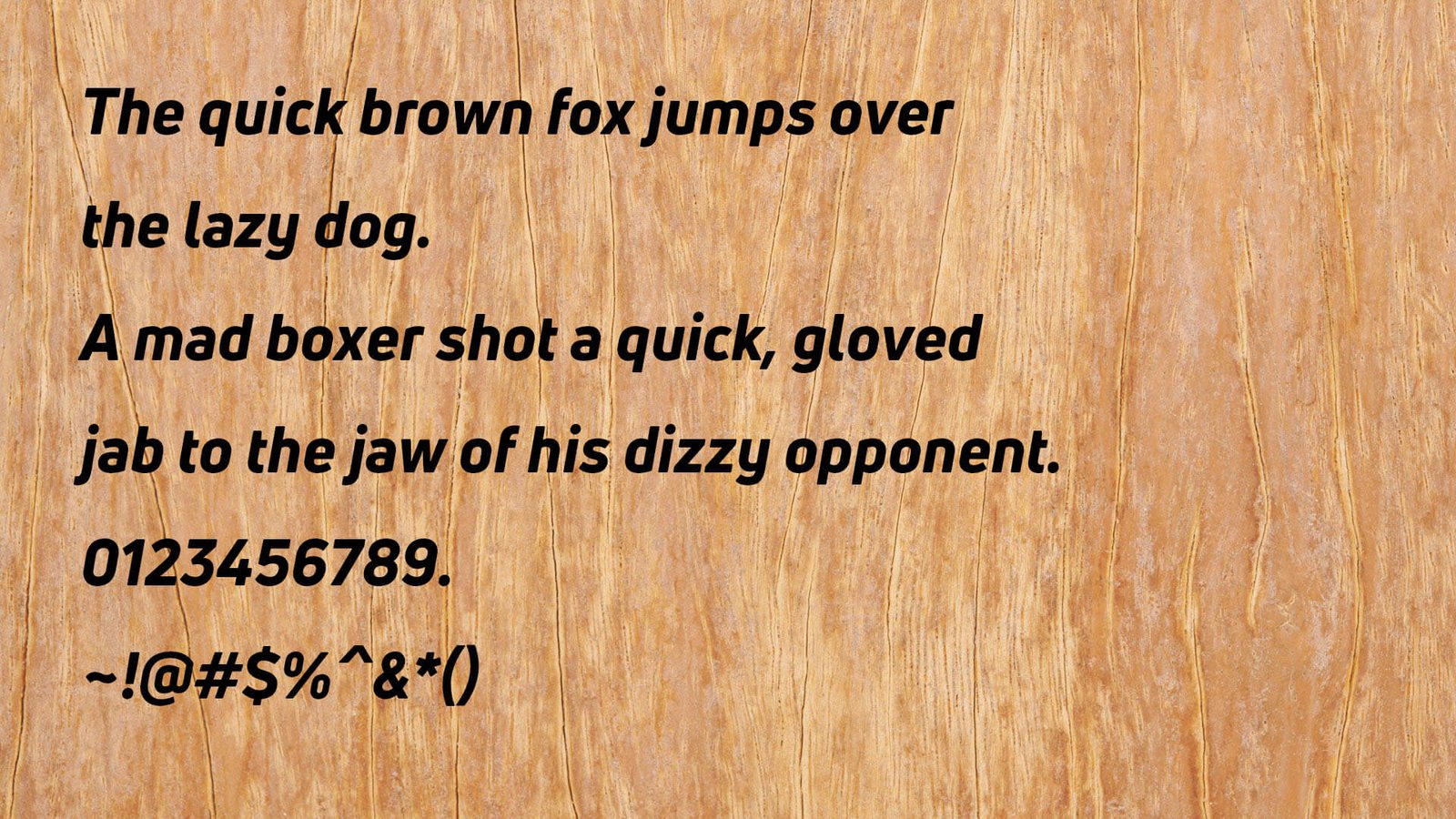
Plamen Motev and Svetoslav Simov both collectively make an effort to design the Uni Neue font. This beautiful font is the re-creation of the previous version that is Uni Sans font. This old version is also one of the popular signature fonts that are designed by the Fontfabric type foundry.
This font has totally a different design. It contains spacing and proportion that enhance its readability. This font is best for the titles and headlines. It contains a huge variety of glyphs including uppercase, lowercase, punctuations, special symbols, etc. So this versatile font can be used in any type of design project.
| Name` | Uni Neue Font |
| Designer | Plamen Motev and Svetoslav Simov |
| Type | Sans Serif |